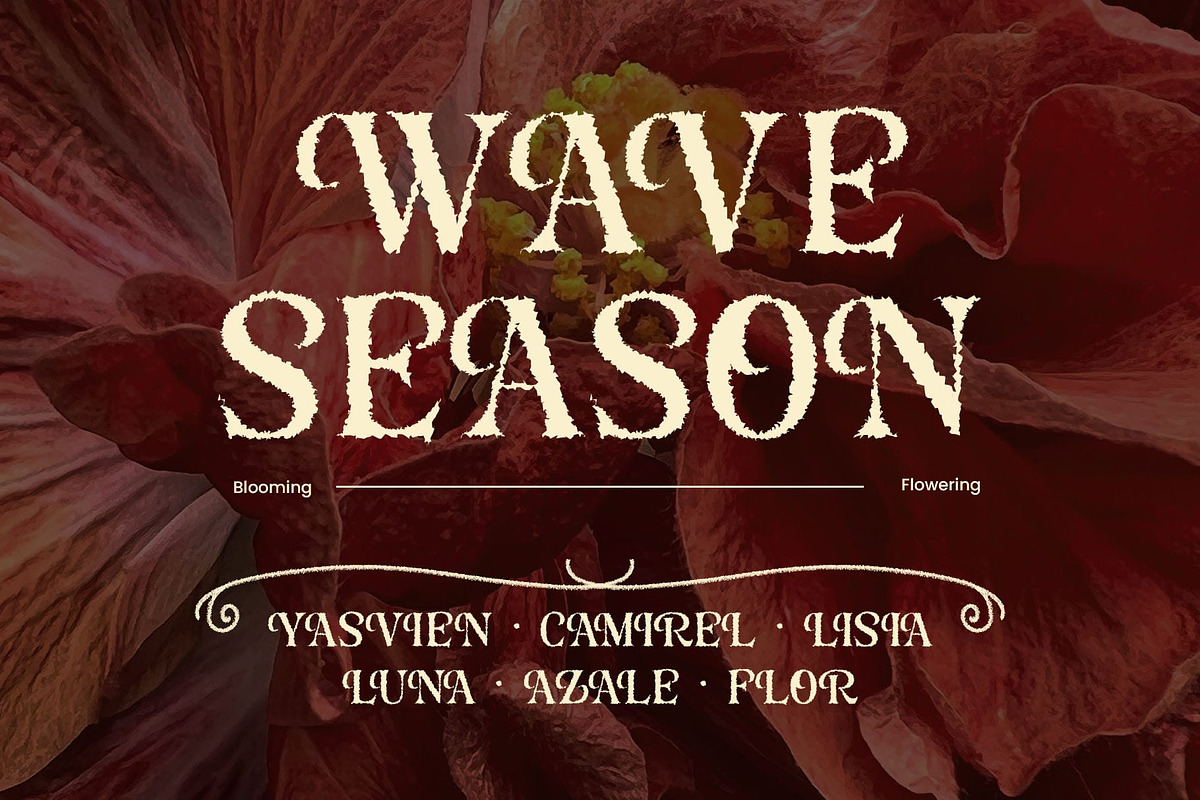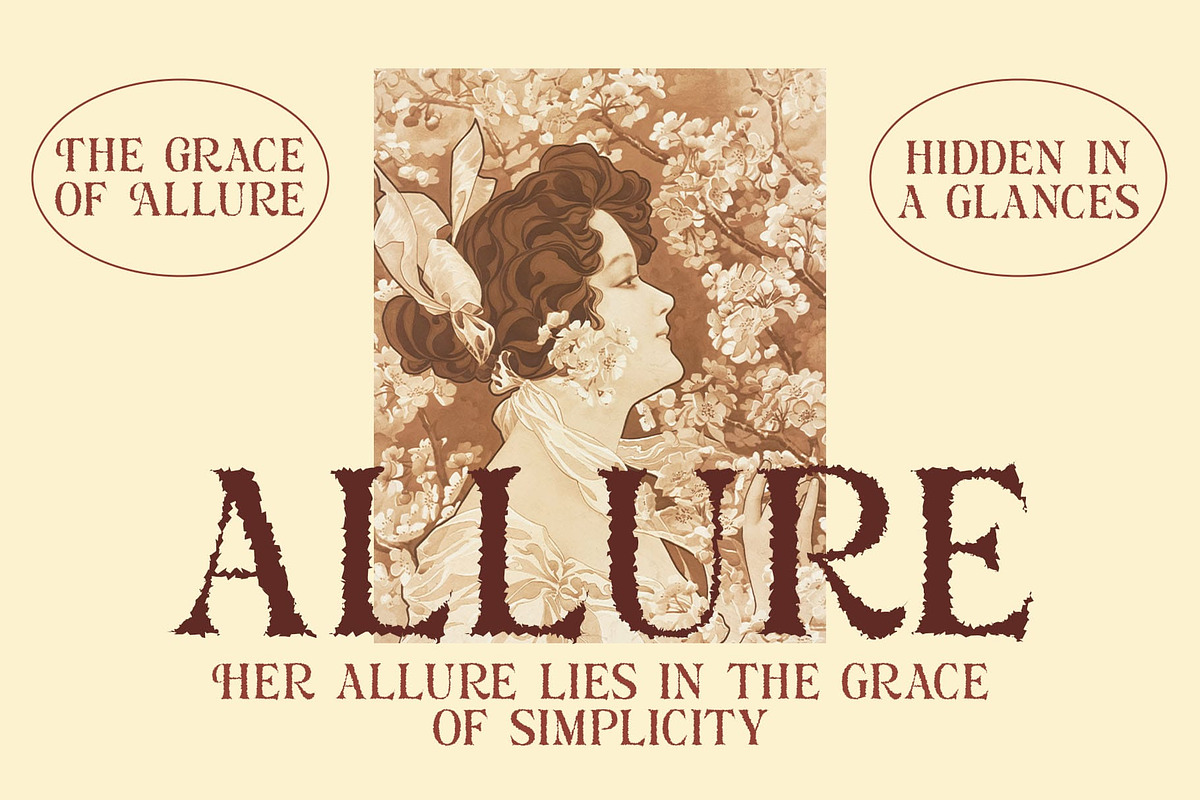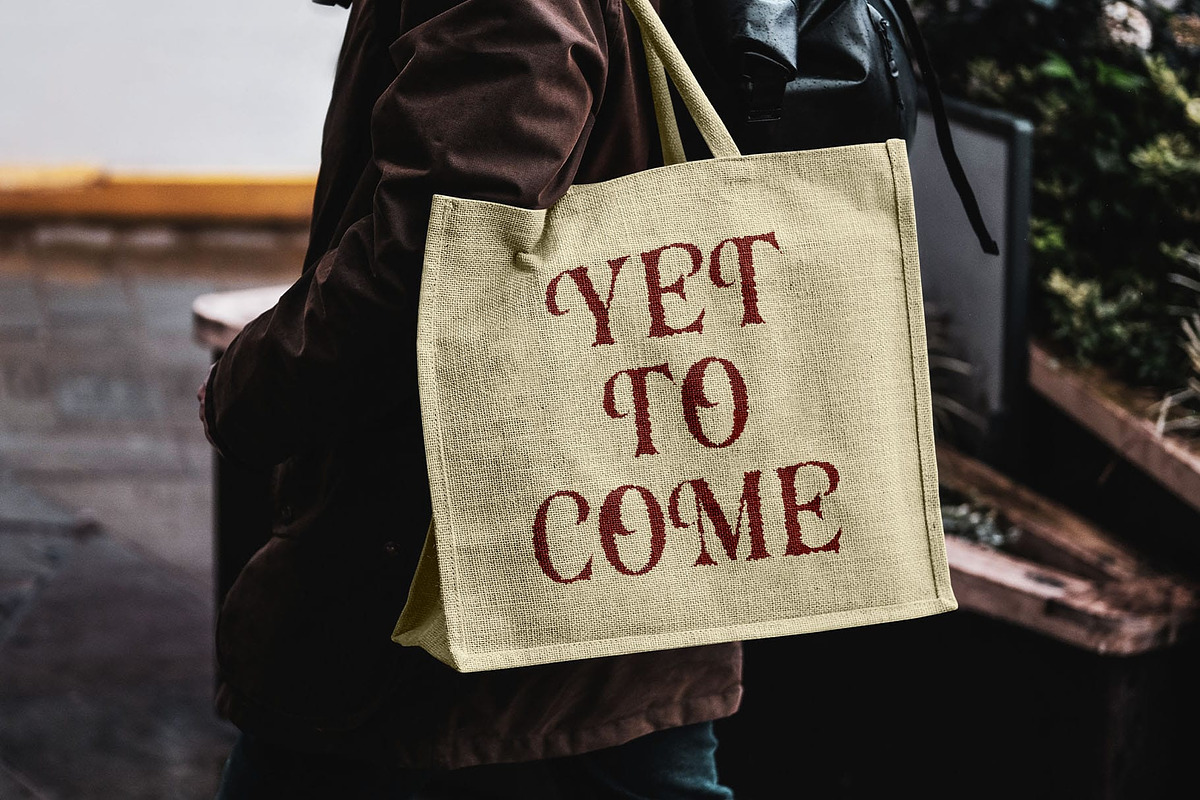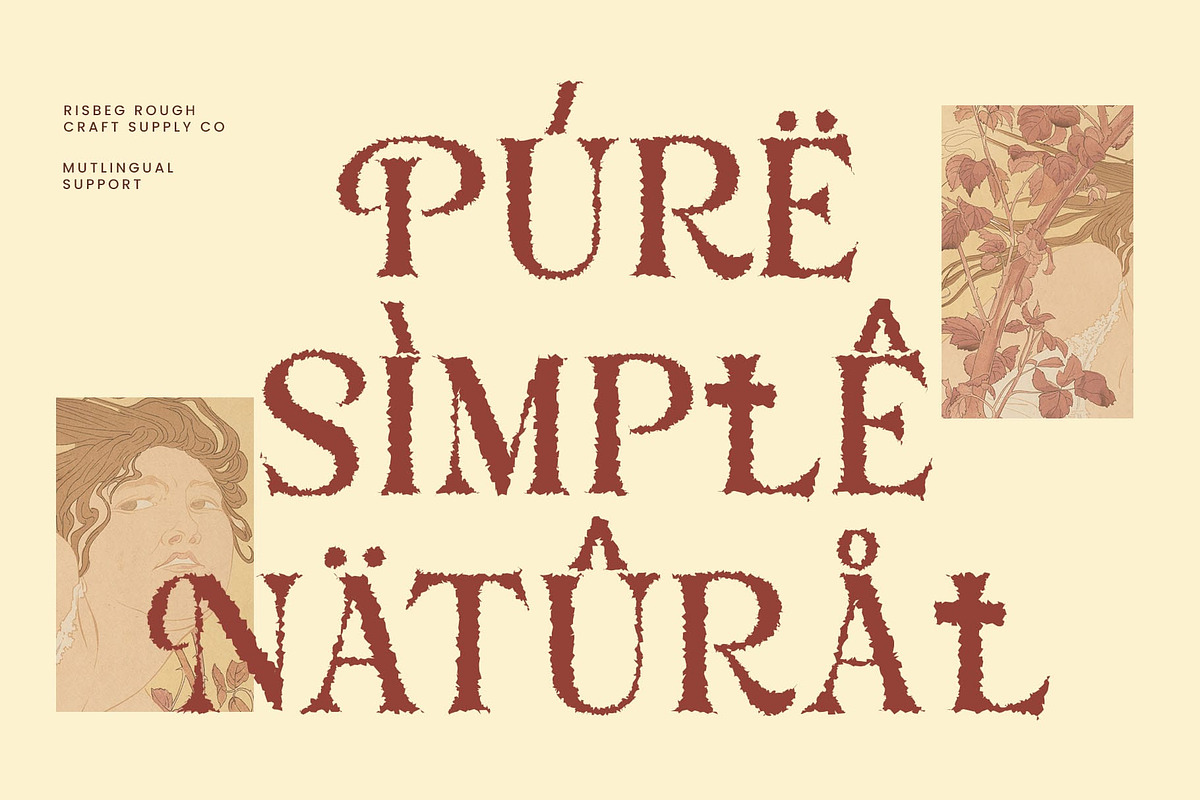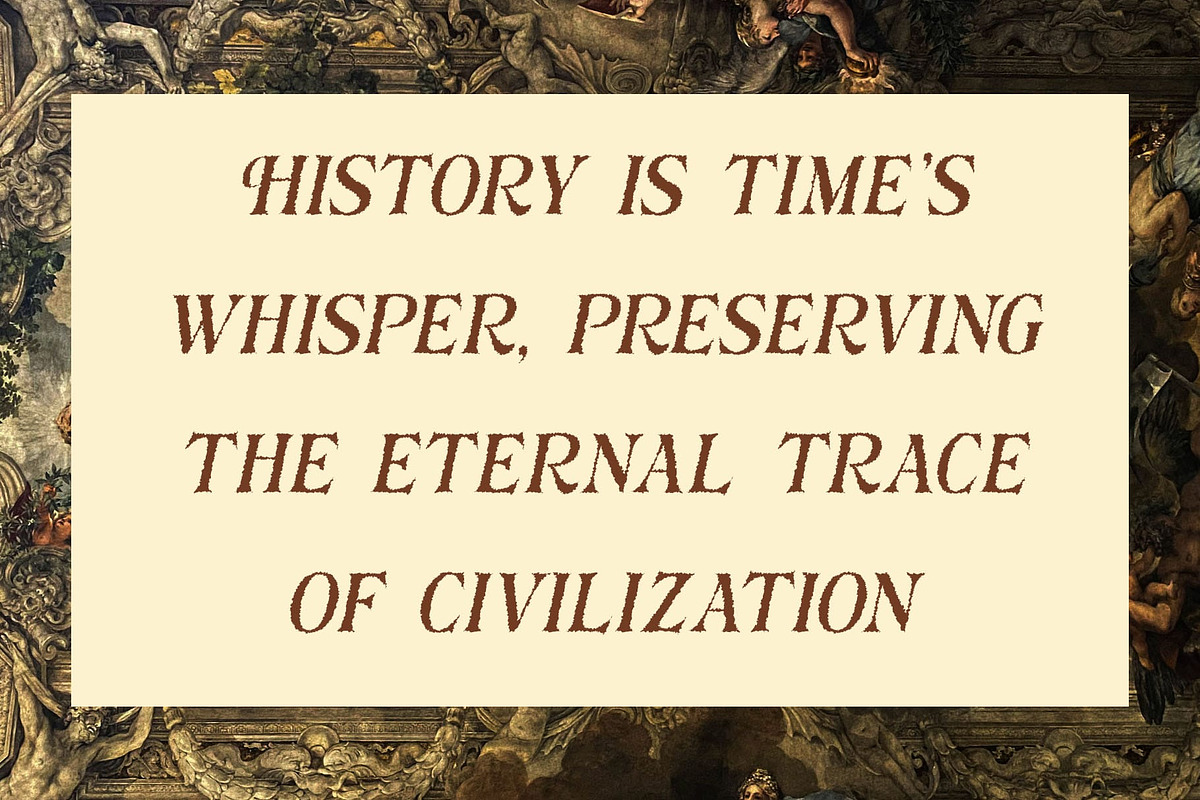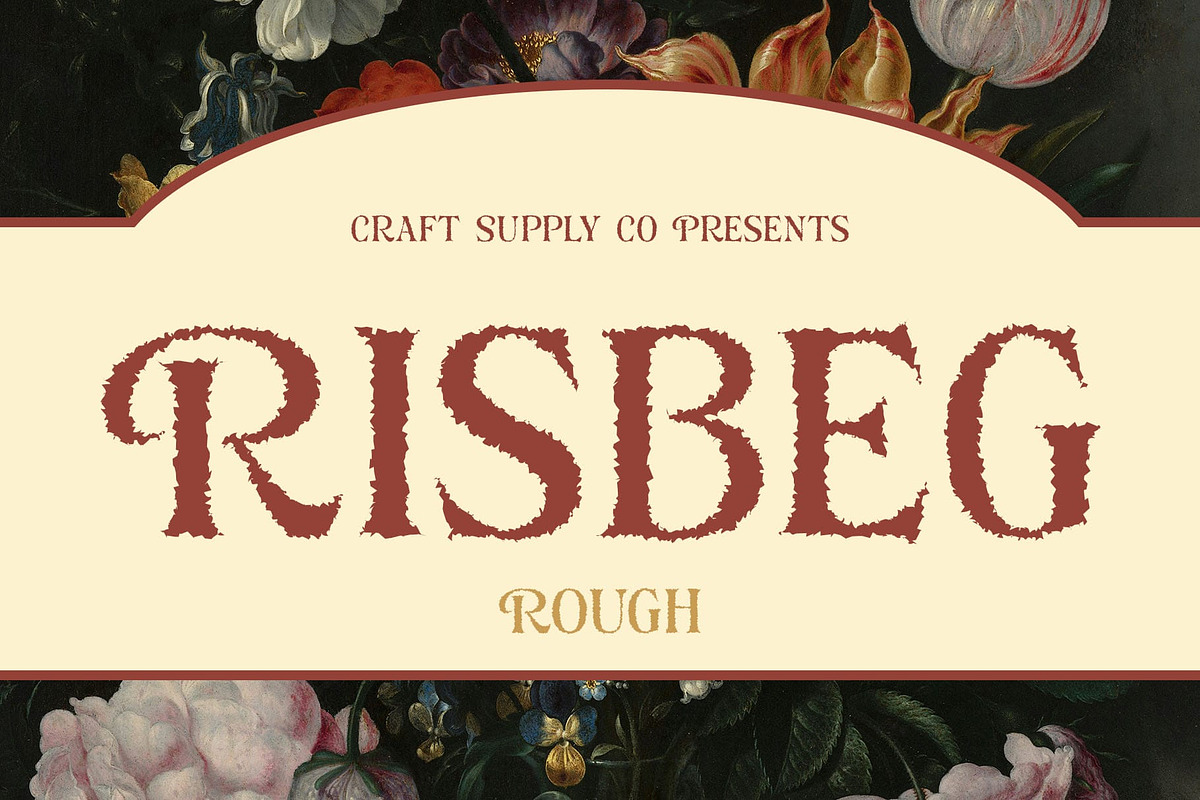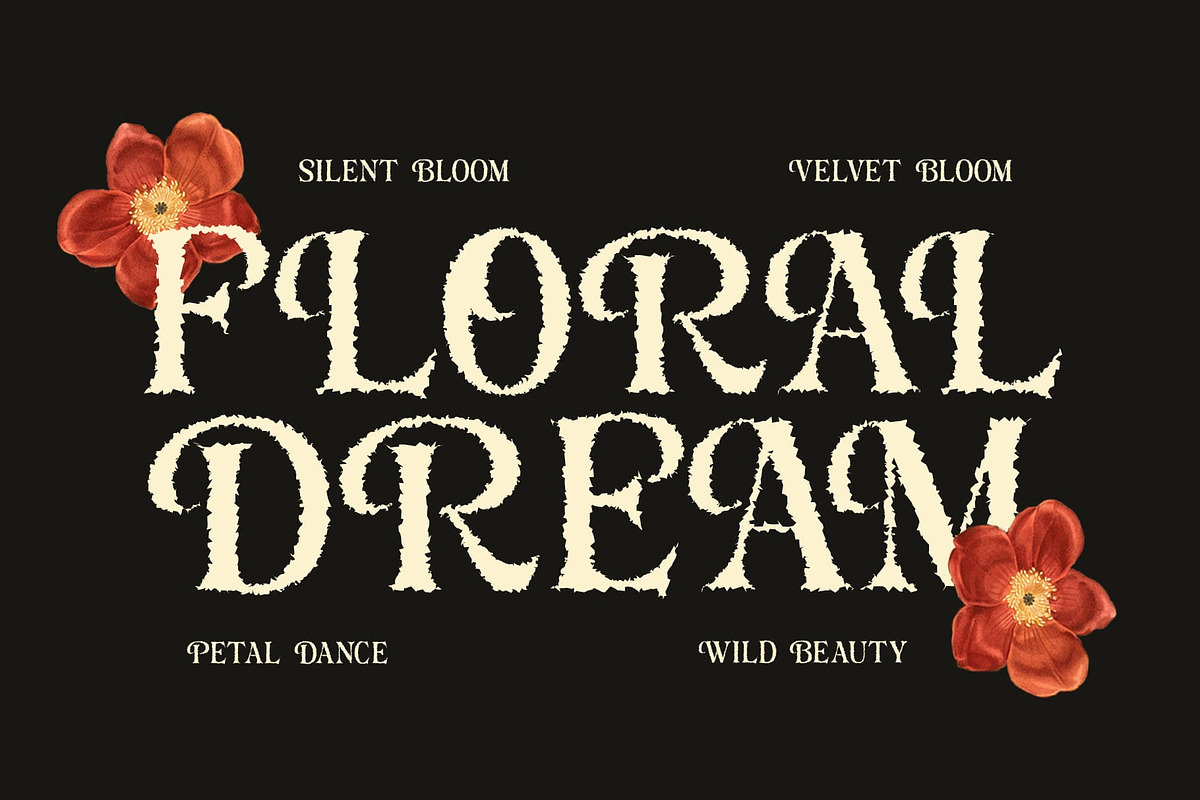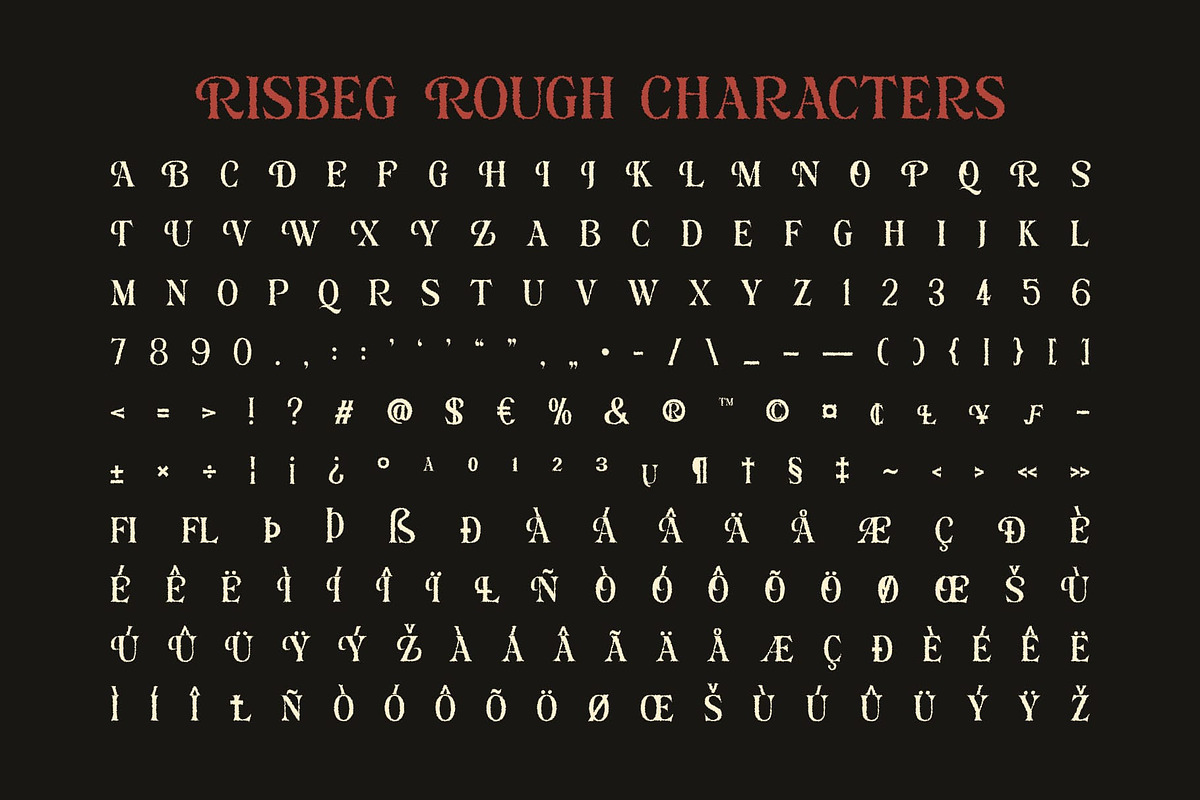
Risbeg Rough
Risbeg Rough Font – Elegant Character with Rugged Charm
Refined Serif with a Contemporary Edge Risbeg Rough is a modern display serif font that blends clean, contemporary shapes with elegant, high-contrast strokes. Its aesthetic appeal lies in the perfect balance between sharp serifs and graceful curves, resulting in a sophisticated and stylish look.
Subtle Rough Effect for Artistic Depth The font is enhanced with a subtle rough texture that adds a touch of rugged charm without overpowering its elegance. This effect introduces a handcrafted, organic quality, giving the font depth and character ideal for artistic and expressive design projects.
Perfect for Luxury and Editorial Designs Designed for high-end applications, Risbeg Rough is an excellent choice for luxury branding, editorial layouts, packaging, and visual identities that aim to communicate both elegance and individuality. It captures attention through its refined form and textured detail, making every headline or logo feel bespoke.
Versatile and Aesthetic for Creative Projects Whether you’re creating a fashion magazine cover, a premium brand identity, or an art-driven concept, Risbeg Rough delivers a distinctive voice. Its combination of modern sophistication and artistic roughness offers designers a unique typographic solution that feels both polished and personal.